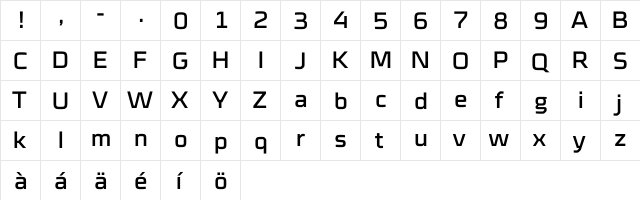
Cube Regular
| Foundry | Jan Maack |
| Designer | Jan Maack |
Design Context for Cube Typeface
Cube takes a measured approach to typography — its balanced proportions and neutral character make it a reliable workhorse for both digital and print work.